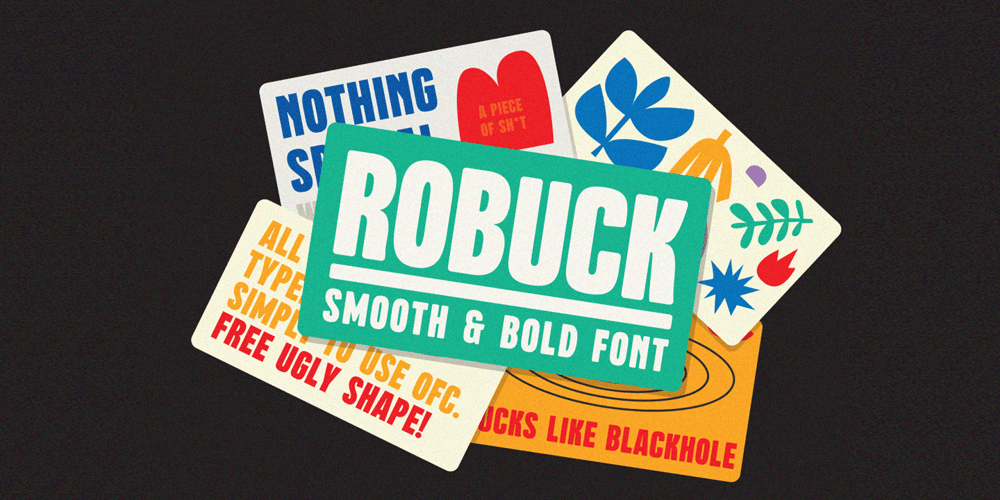
Robuck Font Family was designed by Umar Al Farouq and published by Martype co. Robuck contains 3 styles and family package options. ROBUCK is a family Sans Serif font designed with carefully handcrafted. Also suitable for branding, T-shirt, Wedding Invitation, Classic Design, Logotype, and any project.All caps fonnts.